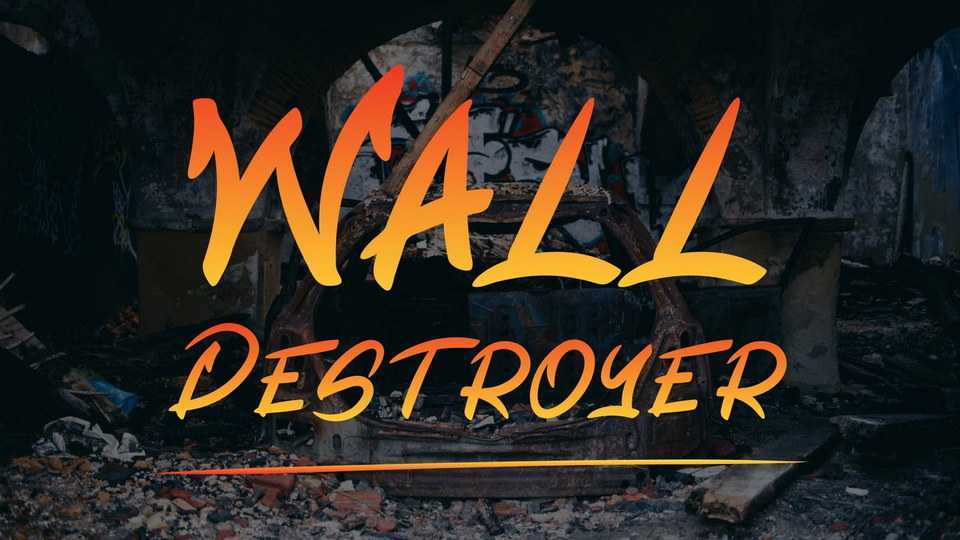
Download Wall Destroyer font, an action typeface. With the aggressiveness of the strokes, the shout and your face attitude it has, Wall Destroyer is all about energy and young blood.